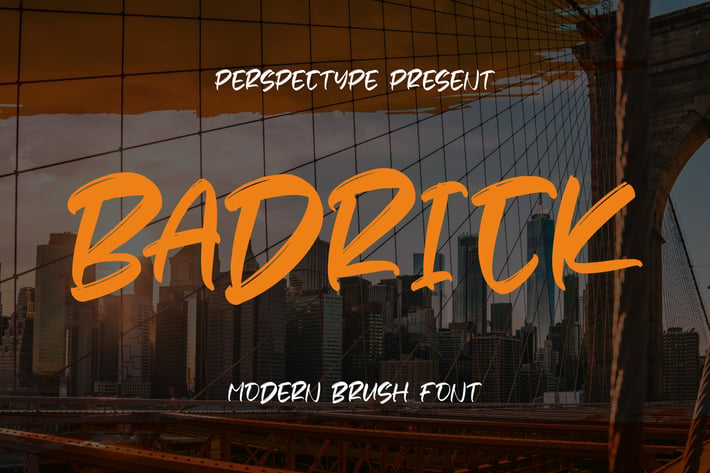
Badrick Modern Brush Font
Badrick is a bold and energetic modern brush font designed to make your message roar with confidence. Its hand-painted texture and dynamic strokes bring a sense of movement and grit — perfect for projects that aim to inspire, motivate, or make a strong visual impact.
Authentic brush texture with modern urban flair
Uppercase and lowercase characters with natural flow
Perfect legibility for bold headlines and creative titles
Strong, expressive strokes for attention-grabbing designs
Sports and fitness branding
Streetwear and lifestyle designs
Event posters and music festival promotions
Motivational quotes and social media banners
* Bold logo and packaging design
Powerful, dynamic, and unapologetically bold — Badrick makes every word a statement.